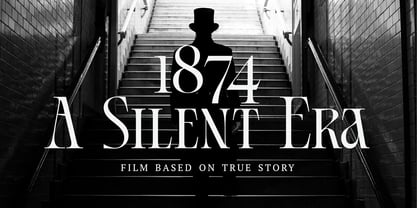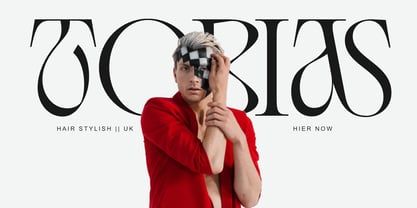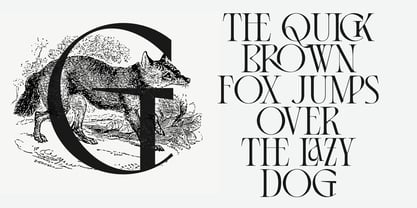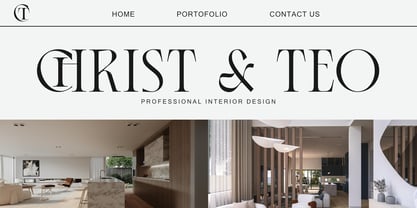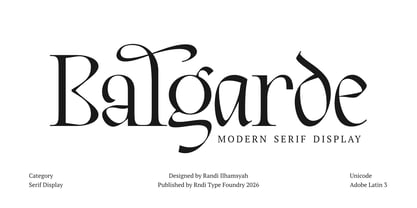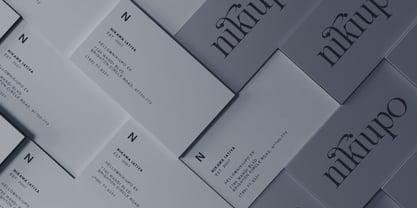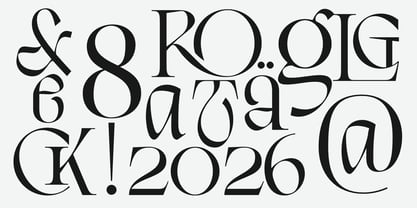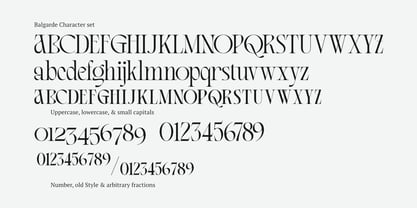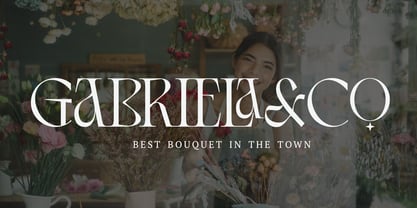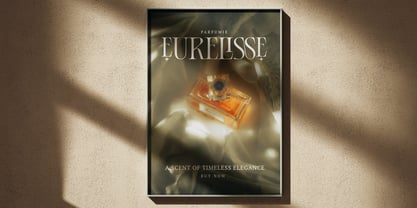
Balgarde Serif
La familia tipográfica Balgarde Serif fue diseñada por Randi Ilhamsyah y publicada por RNDI Type Foundry. Balgarde Serif contiene 1 estilos. Más información sobre esta familia
Balgarde Serif draws inspiration from classic high-contrast serif traditions, reinterpreted with a modern approach. Its design reflects the elegance of editorial typography while introducing sharper details and cleaner forms for contemporary use. Carefully crafted for display purposes, it emphasizes visual impact and refined aesthetics, making it suitable for modern luxury branding and sophisticated design projects.